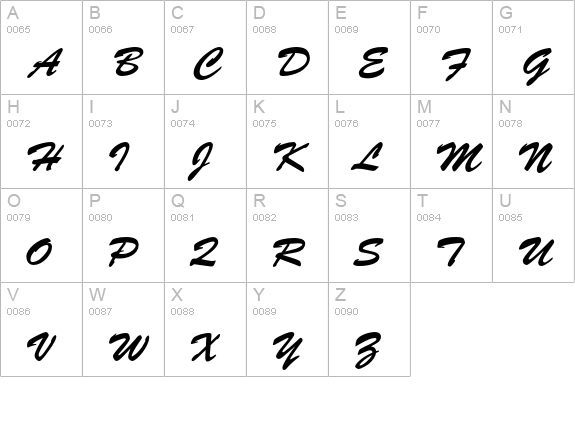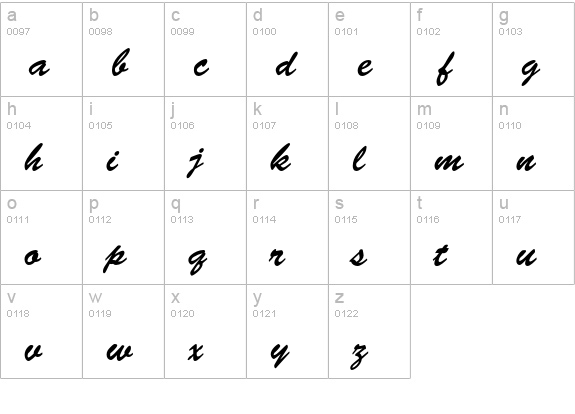
Brush Script Std Medium Font Details
Brush Script Std Medium is a balanced, medium-weight variant in the Brush typeface family \xE2\x80\x94 well suited to sub-headlines, navigation, and balanced editorial work.
Brush Script Std Medium is a stylish and elegant font that exudes a sense of creativity and sophistication. With its flowing brush strokes and smooth curves, this font adds a touch of charm and personality to any design project. Whether used for invitations, greeting cards, or branding materials, Brush Script Std Medium stands out with its unique and artistic flair. What's even better is that this font is available for free download at FontsMarket.com. You can easily access this beautiful typeface and incorporate it into your designs without any cost. Embrace the beauty and versatility of Brush Script Std Medium in your next project and let your creativity shine.